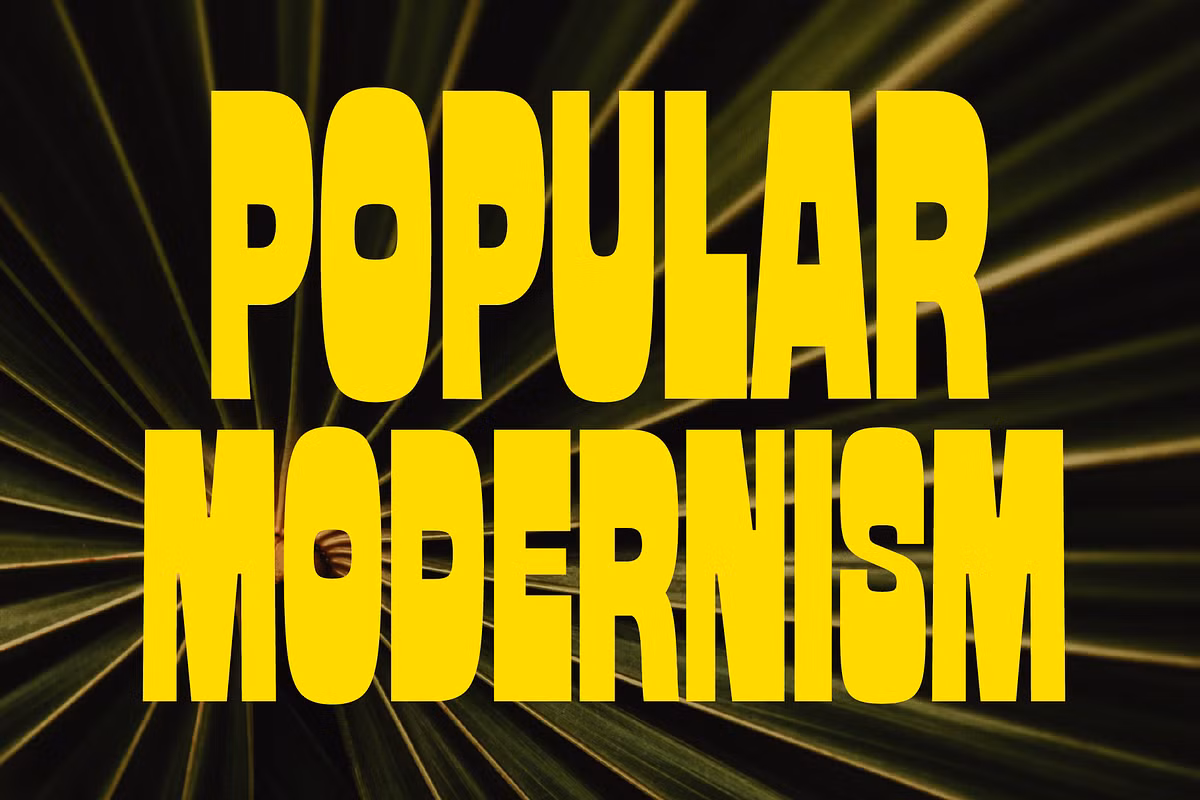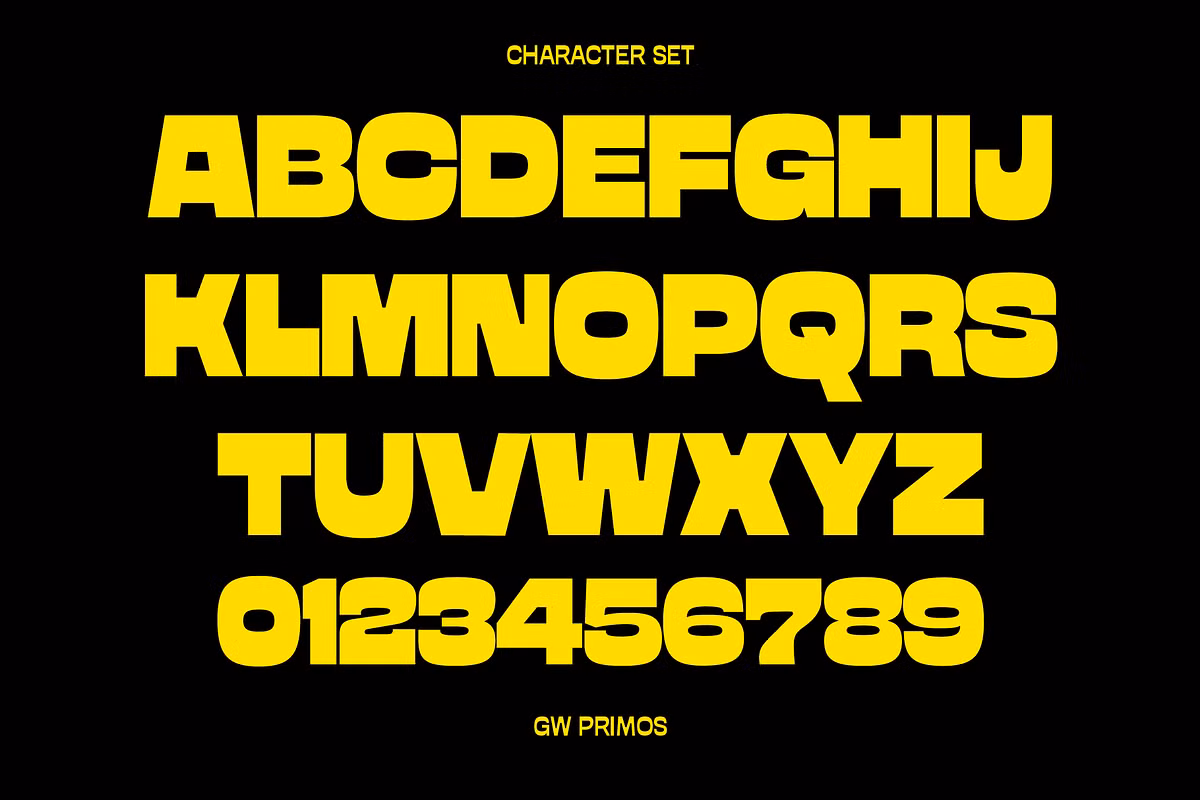
GW Primos: Ultra Bold Variable Font for Creative Typography Design
Welcome to the world of typography, with GW Primos. GW Primos is a display font. GW Primos helps you lift your projects. GW Primos has a contrast and a variable width. GW Primos is built for designers who want to show their style with their typography. In this article I will look at the features and characteristics of GW Primos. I will explore the design style the character sets, the use cases, the pairing suggestions and the licensing information.
Design Style of GW Primos
GW Primos has a weight. That ultra bold weight makes GW Primos a good choice, for headlines posters and any design element that needs attention. I have used GW Primos for headlines. Gw Primos works well. The reverse contrast in GW Primos means the strokes are thicker, on the parts of the letters. Those thicker inner strokes give the typography a look. The reverse contrast improves visibility. The reverse contrast also adds a feel to typeface designs.
The font shows a medium to size. The font fits well in layouts. The font keeps its bold look. The font works for designers who need a mix of look and space saving. Designers who work on projects that need a balance of boldness and space efficiency find the font useful.
Character Set of GW Primos
The character set of GW Primos includes the Latin alphabet. The basic Latin alphabet gives the foundation for design needs. The character set covers marketing materials, digital content and branding elements. The character set provides the letters and numbers. I have used the character set for projects. If additional features or additional character sets are required Goodwheel Studio encourages users to contact Goodwheel Studio for custom work.
Use Cases for GW Primos
GW Primos is a font that you can use in many of the design situations. Below are some ways to use GW Primos:
- Branding: GW Primos is bold. I find the bold look of GW Primos makes GW Primos a good choice, for the logos and the brand names that need to stand out. GW Primos fits.
- Posters: Use GW Primos, in the event posters. The posters need typography to catch the eye and to get the message across.
- Web Design: Web Design is easy to read and looks bold. Web Design works well for the web headers. The calls, to action.
- Packaging: I have seen GW Primos give product packaging a touch. The modern touch improves the appeal. Draws the consumers.
Pairing Suggestions for GW Primos
I have noticed that when I use GW Primos, pairing GW Primos with fonts makes the design look better. Here are some pairing suggestions:
- Sans Serif Fonts: I pair GW Primos with a sans serif font. I use Montserrat or Open Sans for the body text. The pairing of GW Primos, with Montserrat or Open Sans lets GW Primos shine in headings and keeps the blocks of text to read.
- Serif Fonts: I pair GW Primos with a serif font, like Playfair Display when I want a look. The contrast, between the display and the serif gives a look.
- Geometric Fonts: I use Geometric Fonts such, as Futura or Avenir with GW Primos. The geometric fonts have shapes that give a cohesive look, across design elements.
GW Primos is a font that adds a new look, to the creative type. GW Primos design elements many use cases and the adaptability make GW Primos a useful tool, for designers who want a look. When you craft a brand identity, design marketing material or create content GW Primos offers a mix of style and function. Happy designing!